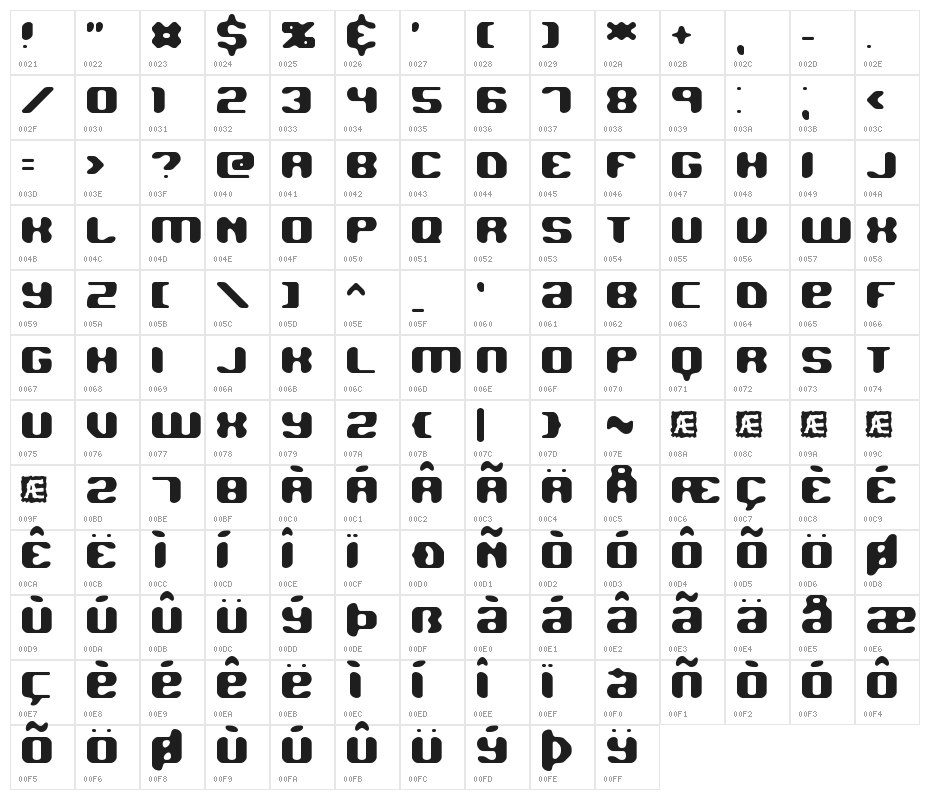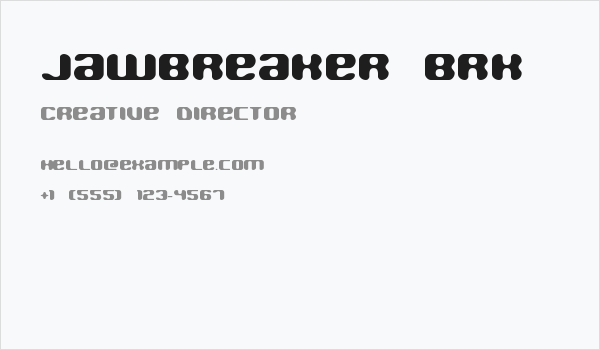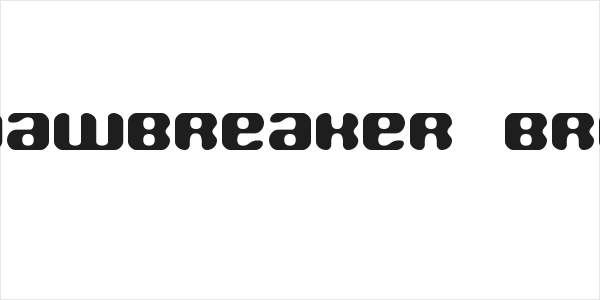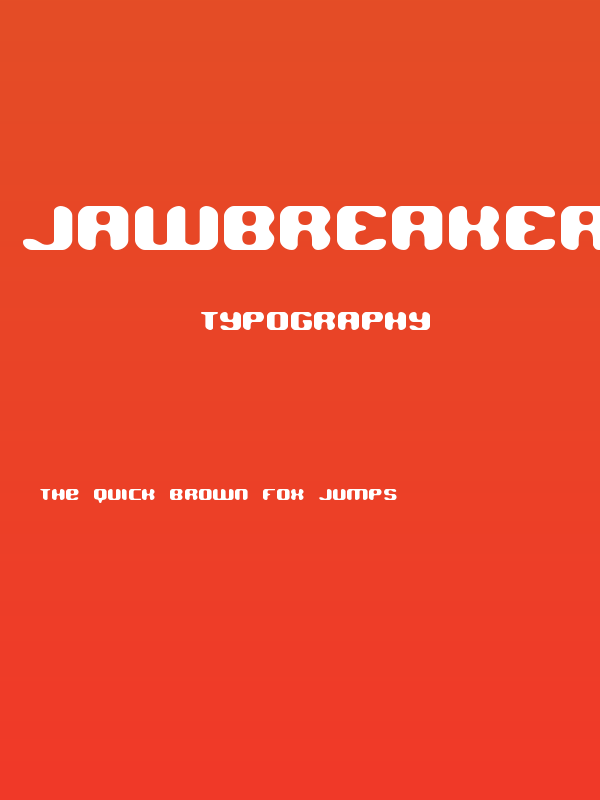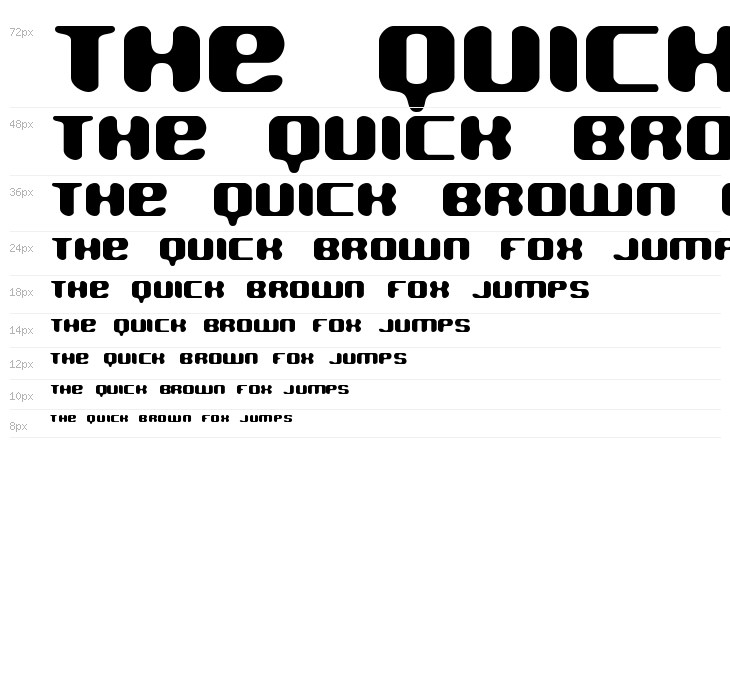
Jawbreaker BRK Font
Jawbreaker BRK Description
This font features a bold and playful design with rounded edges and a blocky structure. The characters are uniformly thick, giving it a strong presence. The style is reminiscent of retro or vintage arcade games, with a modern twist. The uppercase and lowercase letters maintain a consistent width, creating a cohesive look. The numbers and special characters follow the same design principles, ensuring uniformity across all glyphs. This font is ideal for projects that require a fun and engaging aesthetic, such as posters, logos, or video game graphics.
Overall StyleRetro, Modern
Proposed ProjectsPerfect for posters, logos, video game graphics, and any project needing a fun, engaging look.